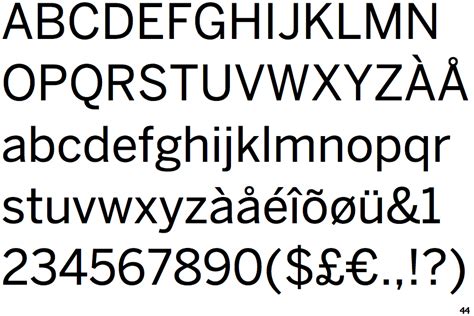
Benton Sans Font. Benton sans wide thin italic. Type network offers a curated selection of typefaces from quality foundries for use across desktop, web, apps, and more.
The benton sans typeface from the font bureau, inc. Web benton sans font free download. Benton sans wide thin italic. Web benton sans is available in an impressive eight weights—thin, extralight, light, book, regular, medium, bold and black—each with corresponding italic and small caps styles. Has a history of design and development that spans an entire century. If you are looking for a free version of this gorgeous typeface then click on the below “download now” button to get its free version on your. Type network offers a curated selection of typefaces from quality foundries for use across desktop, web, apps, and more.